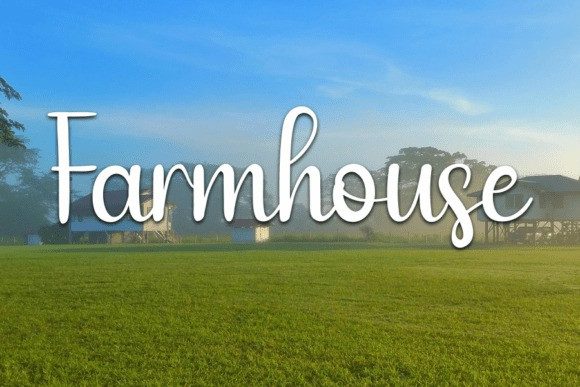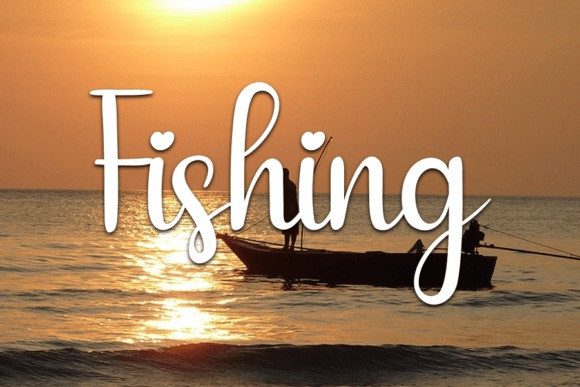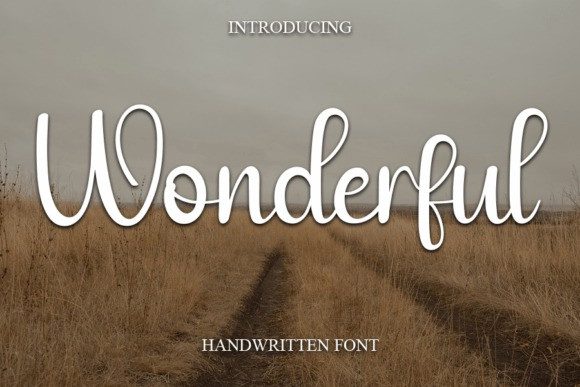
Wonderful Script Type
Wonderful Script Type is a lovely and timeless handwritten font. It is the best choice for creating eye catching logos, branding and quotes. Every letter has a unique and beautiful touch, which will make your design come alive!